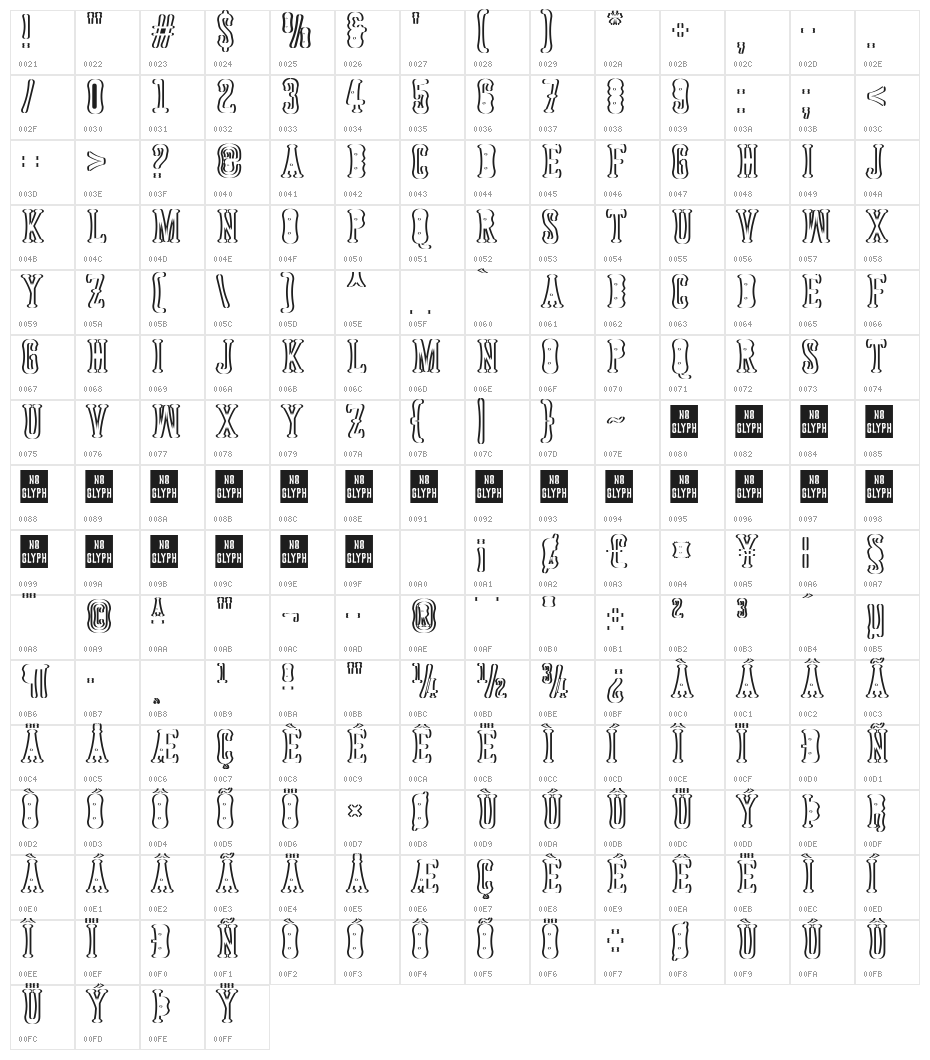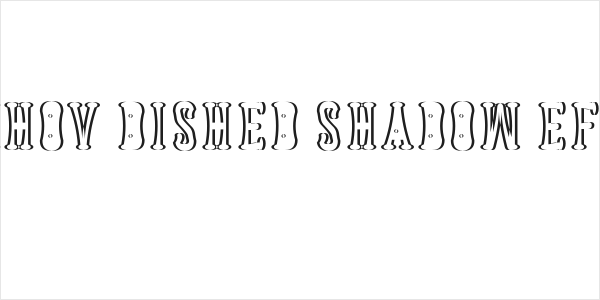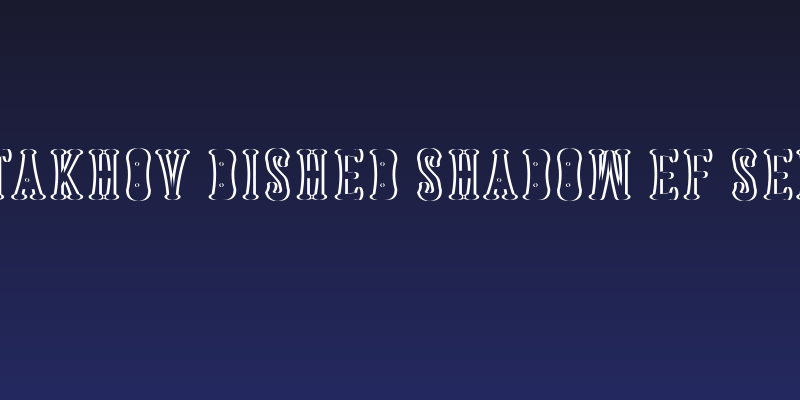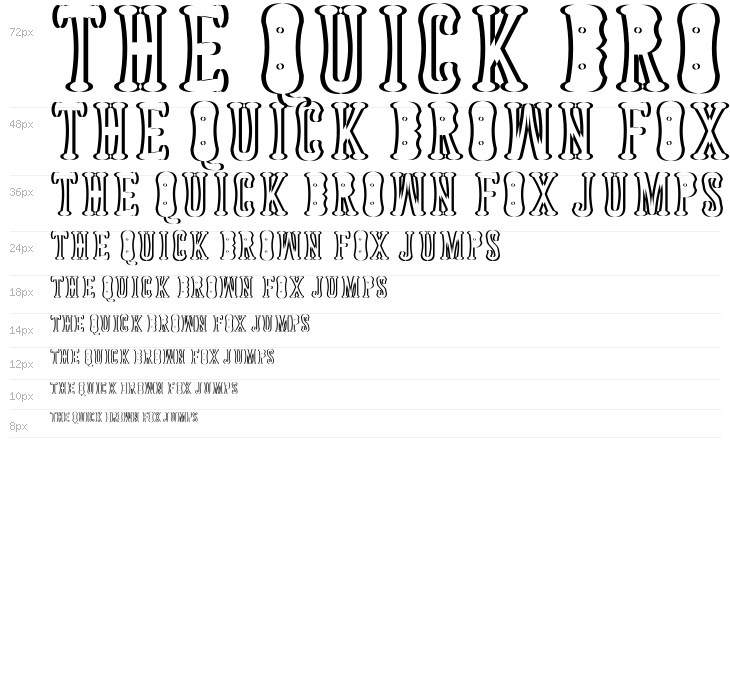
Astakhov Dished Shadow EF Serif Font
Astakhov Dished Shadow EF Serif Description
This font features a unique and decorative style with a shadow effect that adds depth and dimension to each character. The serif design is bold and eye-catching, with intricate detailing that gives it a vintage and artistic flair. The letters are well-spaced, ensuring readability while maintaining an ornate appearance. The numbers and special characters are crafted with the same attention to detail, making them stand out in any design. This font is perfect for projects that require a touch of elegance and creativity.
| Proposed Projects | Ideal for posters, branding, invitations, and any design needing a decorative and vintage touch. |